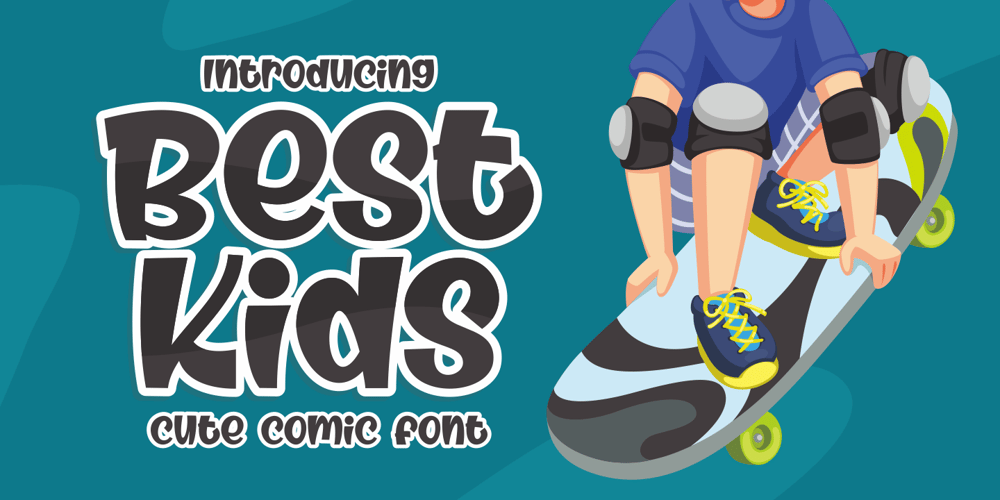
Best Kids
Best Kids font
Best Kids Font Family was designed by Riyadh Abuhafs and published by Awan Senja. Best Kids contains 1 styles and family package options. Best Kids is a cute and quirky display font. It will add an incredibly joyful touch to your designs. Add this beautiful display font to each of your creative ideas and notice how it makes them stand out!